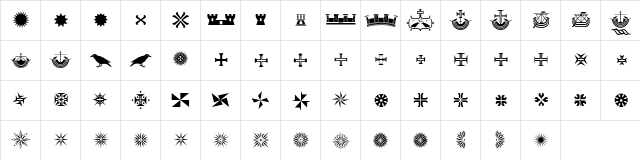
Lisboa Dingbats Symbols Regular
Design Context for Lisboa Dingbats Symbols Typeface
Lisboa Dingbats Symbols takes a measured approach to typography — its balanced proportions and neutral character make it a reliable workhorse for both digital and print work.